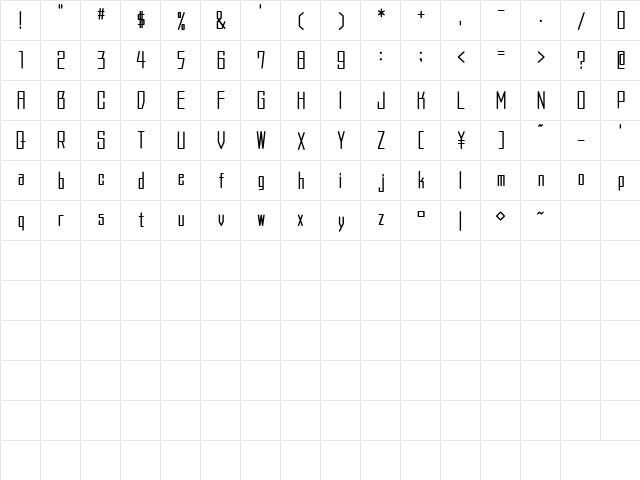
MW HONE Regular
Design Context for MW HONE Typeface
MW HONE takes a measured approach to typography — its balanced proportions and neutral character make it a reliable workhorse for both digital and print work.